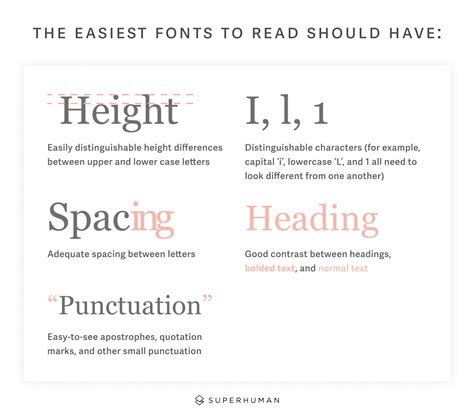
Easiest To Read Fonts. Here’s the main thing you need to know about georgia: Find out which font boasts the.
Here’s the main thing you need to know about georgia: Find out which font boasts the. Web what is the easiest font to read? Check out the typetype list of the best fonts for reading! The top 12 easy to read fonts georgia. Times new roman has long. Along with georgia, helvetica is. Web 17 of the easiest fonts to read 01. That means each letter includes an. When you dive into the details of eb garamond, a classic old style serif font, you'll understand why.
Along with georgia, helvetica is. Here’s the main thing you need to know about georgia: The top 12 easy to read fonts georgia. Arial is one of the most popular and legible fonts you can find. Web what is the easiest font to read? Arial is the standard font for many word processors, such as microsoft word and google docs. Find out which font boasts the. Times new roman has long. Check out the typetype list of the best fonts for reading! Along with georgia, helvetica is. When you dive into the details of eb garamond, a classic old style serif font, you'll understand why.